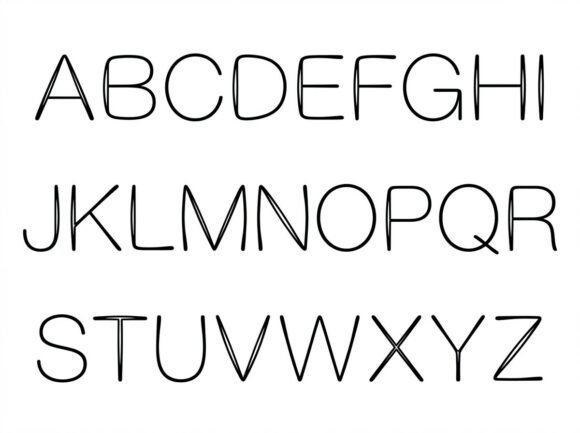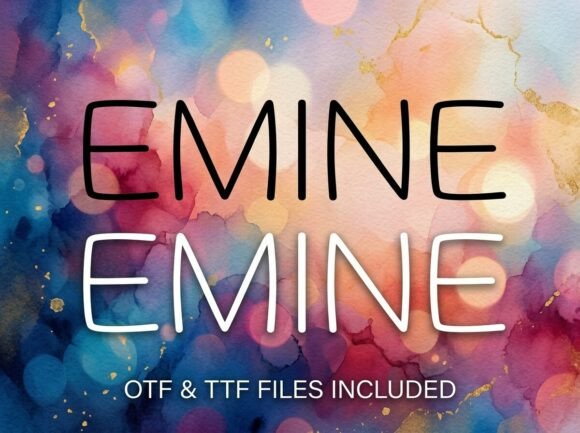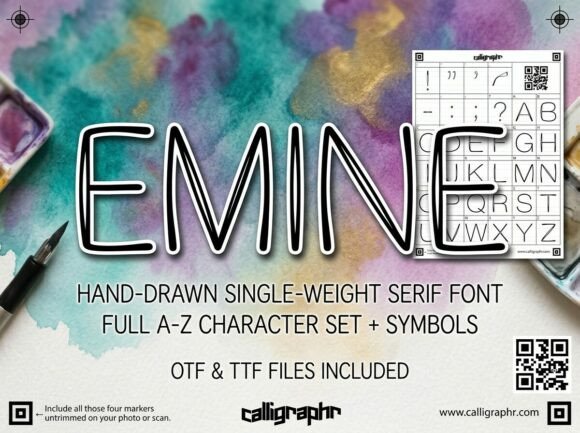
Introducing Emine Font: A Stunning Decorative Display Font
Are you tired of using the same old fonts for your designs? Do you want to make a statement and stand out from the crowd? Look no further than Emine Font, a unique and artistic decorative display font that’s sure to turn heads. In this article, we’ll take a closer look at what makes Emine Font special and how it can elevate your designs.
Emine Font is a stunning decorative display font designed to be the center of attention. With its unique artistic elements and strong visual personality, this font is perfect for creators who want to break away from the ordinary. Whether you’re designing bold headlines, artistic logos, or creative packaging, Emine Font is versatile enough to make a lasting impression while maintaining a professional and polished finish.
Emine Font is perfect for designers and crafters who want to add a touch of elegance and sophistication to their work. With its unique and artistic elements, this font is ideal for:
- Bold Headlines: Use Emine Font to create eye-catching headlines that grab attention and make a statement.
- Artistic Logos: Create stunning logos that showcase your brand’s personality and style.
- Creative Packaging: Use Emine Font to add a touch of elegance and sophistication to your packaging designs.
Tips for Using Emine Font
Here are some tips for getting the most out of Emine Font:
- Use it sparingly: Emine Font is a decorative display font, so use it sparingly to make a maximum impact.
- Experiment with colors: Try pairing Emine Font with different colors to create a unique and eye-catching design.
- Mix and match: Combine Emine Font with other fonts to create a visually appealing design.
In conclusion, Emine Font is a stunning decorative display font that’s perfect for designers and crafters who want to add a touch of elegance and sophistication to their work. With its unique artistic elements and strong visual personality, this font is sure to turn heads. So why settle for ordinary fonts when you can make a statement with Emine Font?